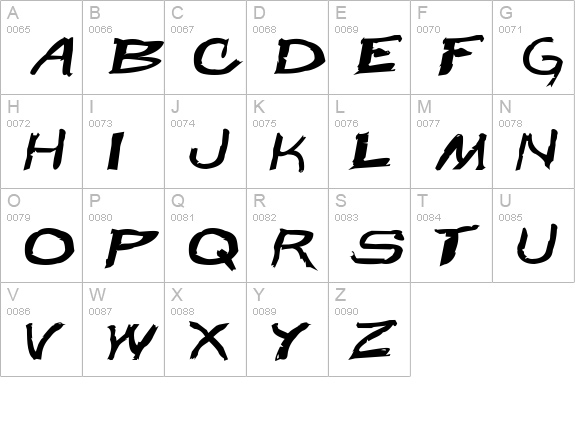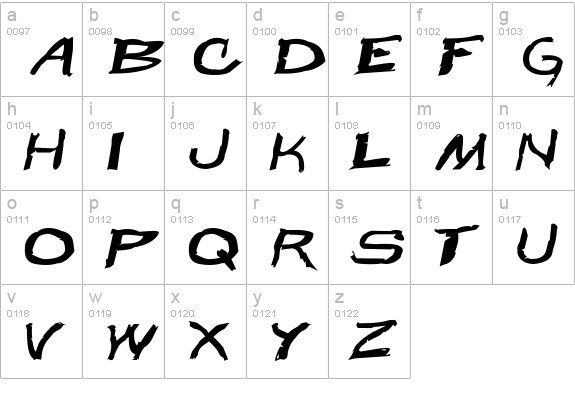
Beast Wars Font Details
Beast Wars font is a bold and powerful typeface that exudes strength and ferocity. Inspired by the fierce creatures of the wild, this font features sharp angles and dynamic letterforms that make a striking impact. Whether used for headlines, logos, or posters, Beast Wars font commands attention and leaves a lasting impression. Best of all, Beast Wars font is available for free download at FontsMarket.com. Embrace the untamed spirit of the wild with this unique and captivating font that is sure to make your designs stand out from the pack. Unleash your creativity and bring a touch of beastly energy to your projects with Beast Wars font.